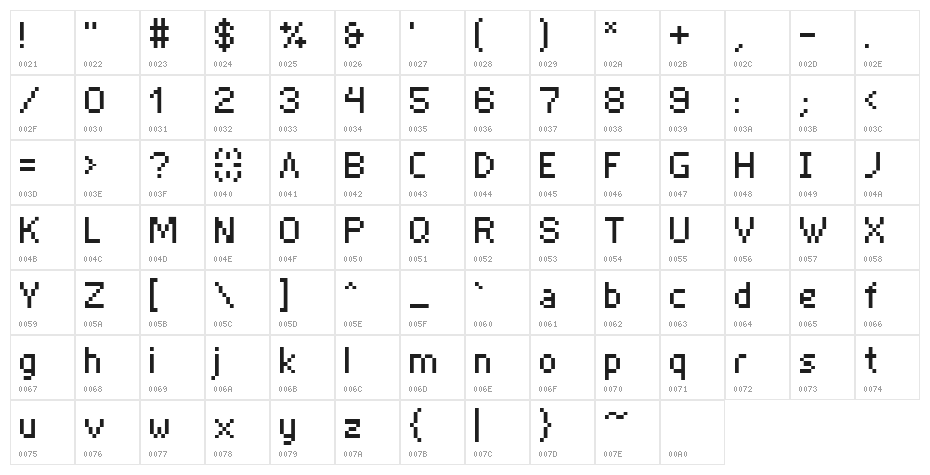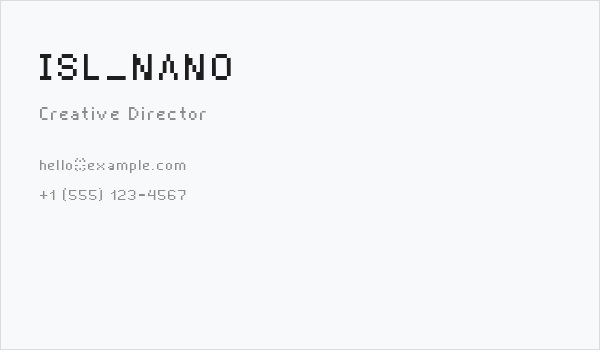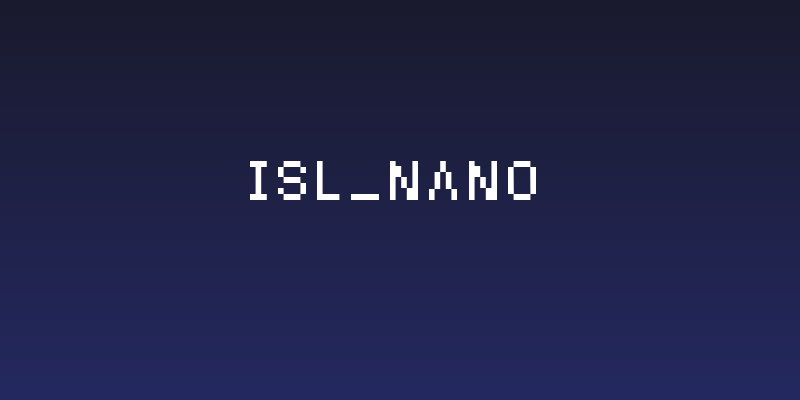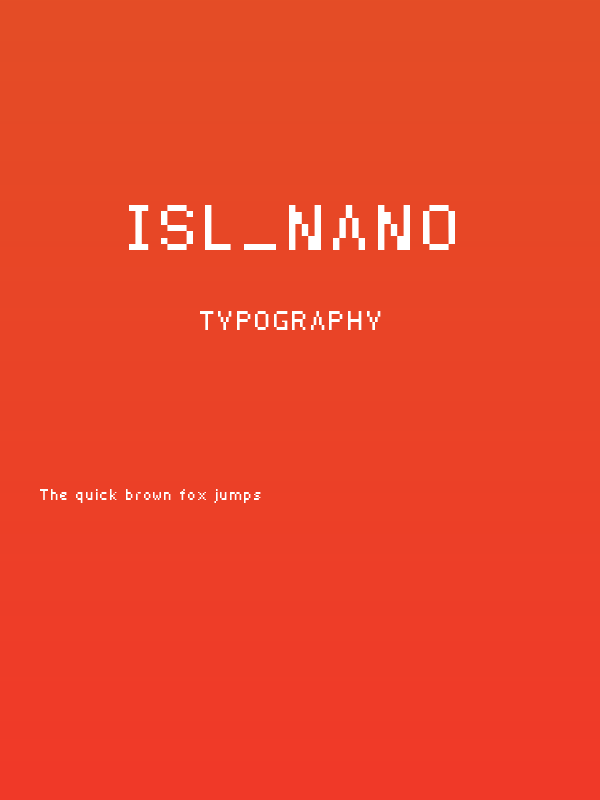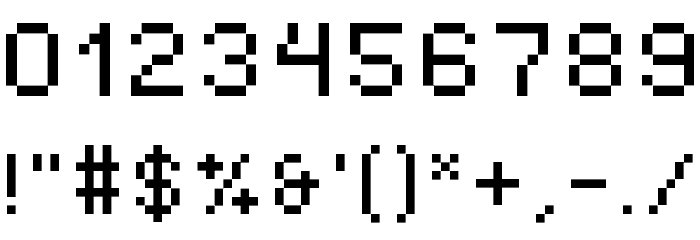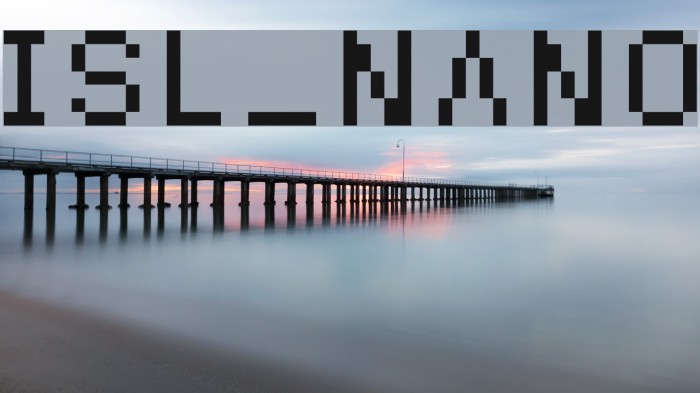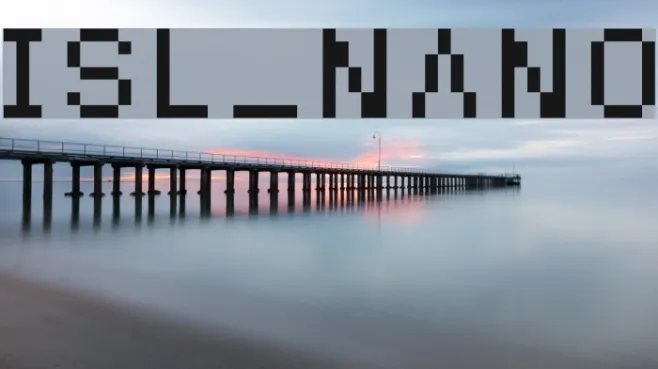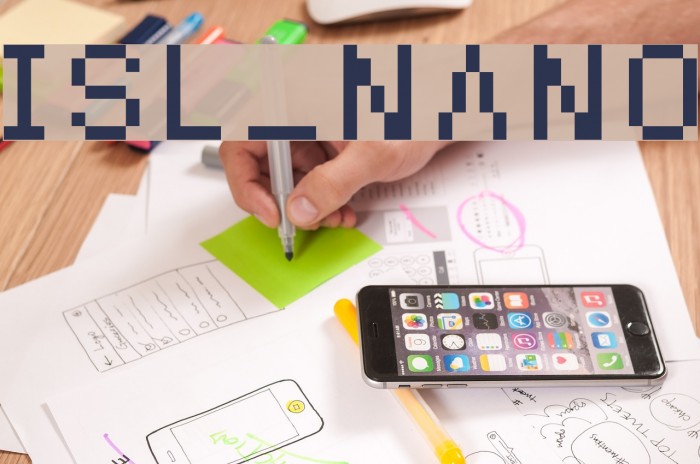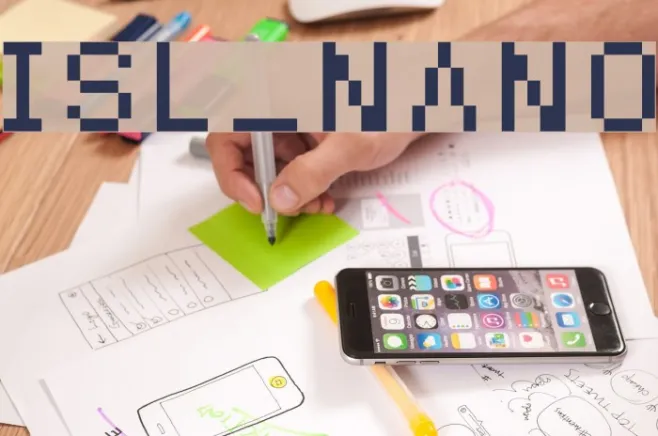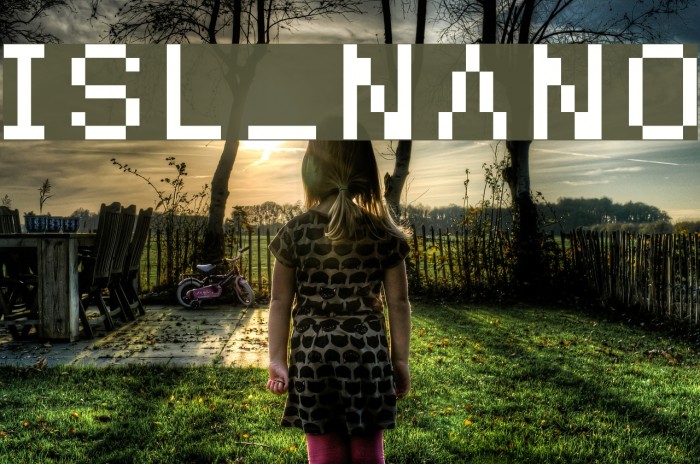
ISL_NANO Font
ISL_NANO Description
This font features a pixelated, blocky design reminiscent of early digital displays and retro video games. Each character is constructed with a uniform grid-like structure, giving it a distinct, mechanical appearance. The uppercase and lowercase letters maintain a consistent height, enhancing readability while preserving the font's unique style. Numbers and special characters follow the same pixelated pattern, ensuring uniformity across all glyphs. The font's simplicity and geometric precision make it ideal for projects that require a nostalgic or tech-inspired aesthetic.
| Proposed Projects | Ideal for retro video game designs, digital art projects, tech-themed posters, and any creative work that benefits from a nostalgic digital aesthetic. |